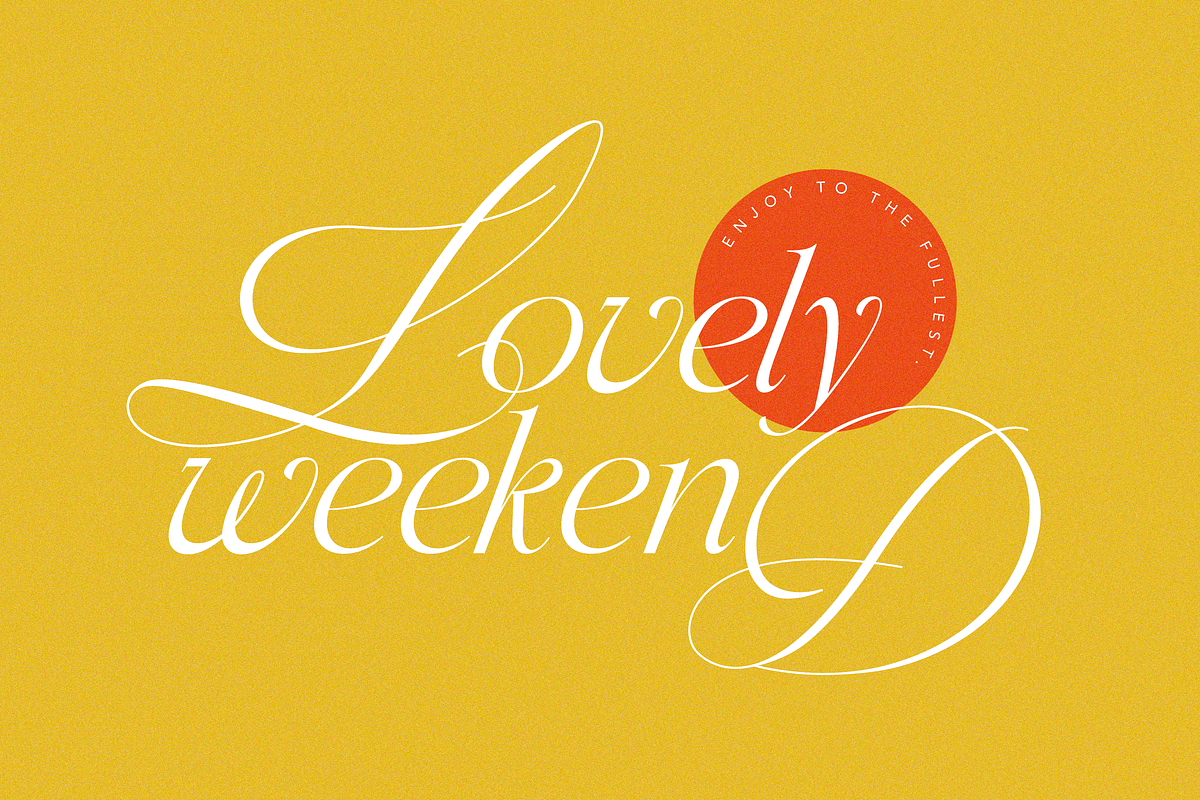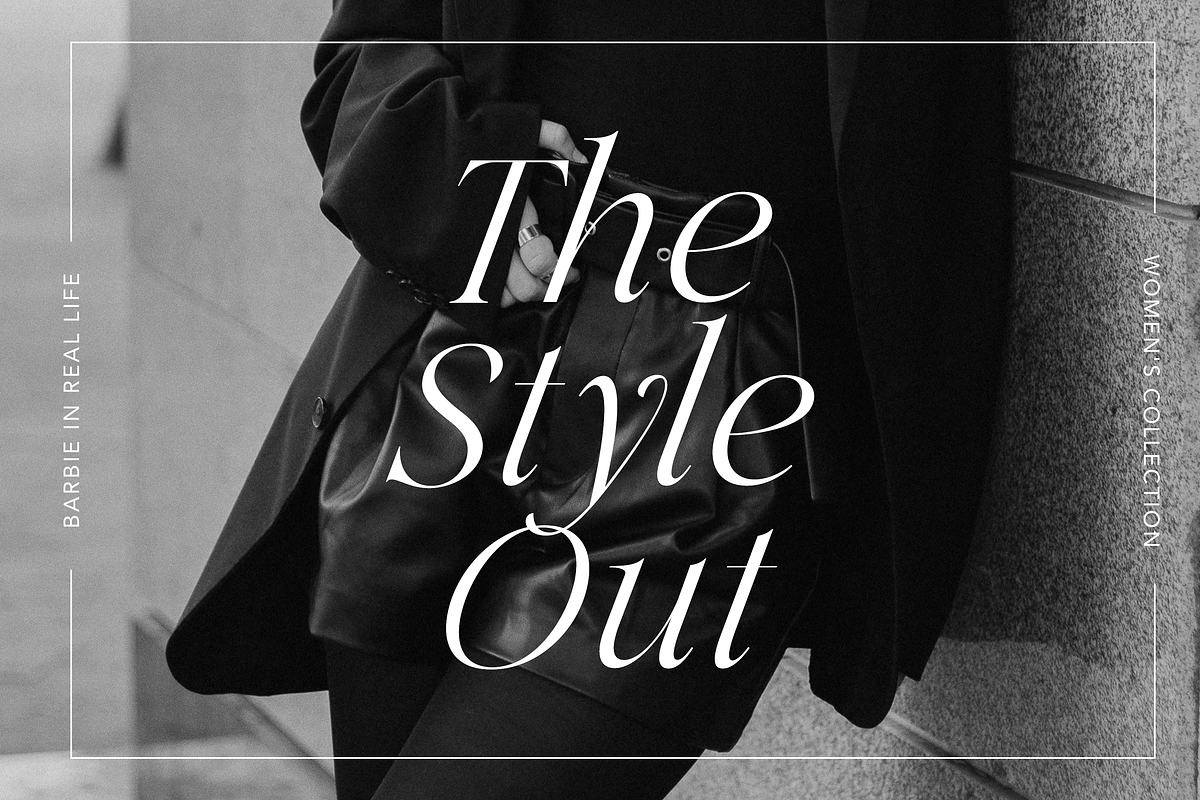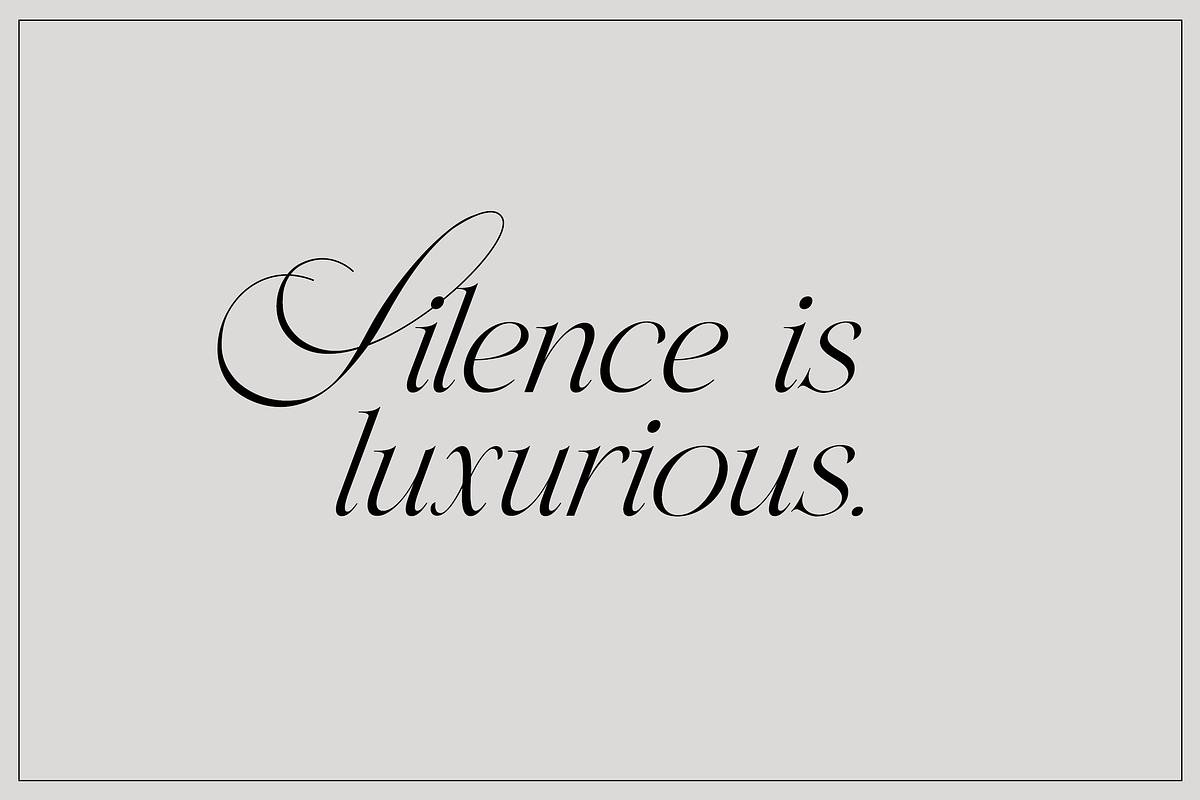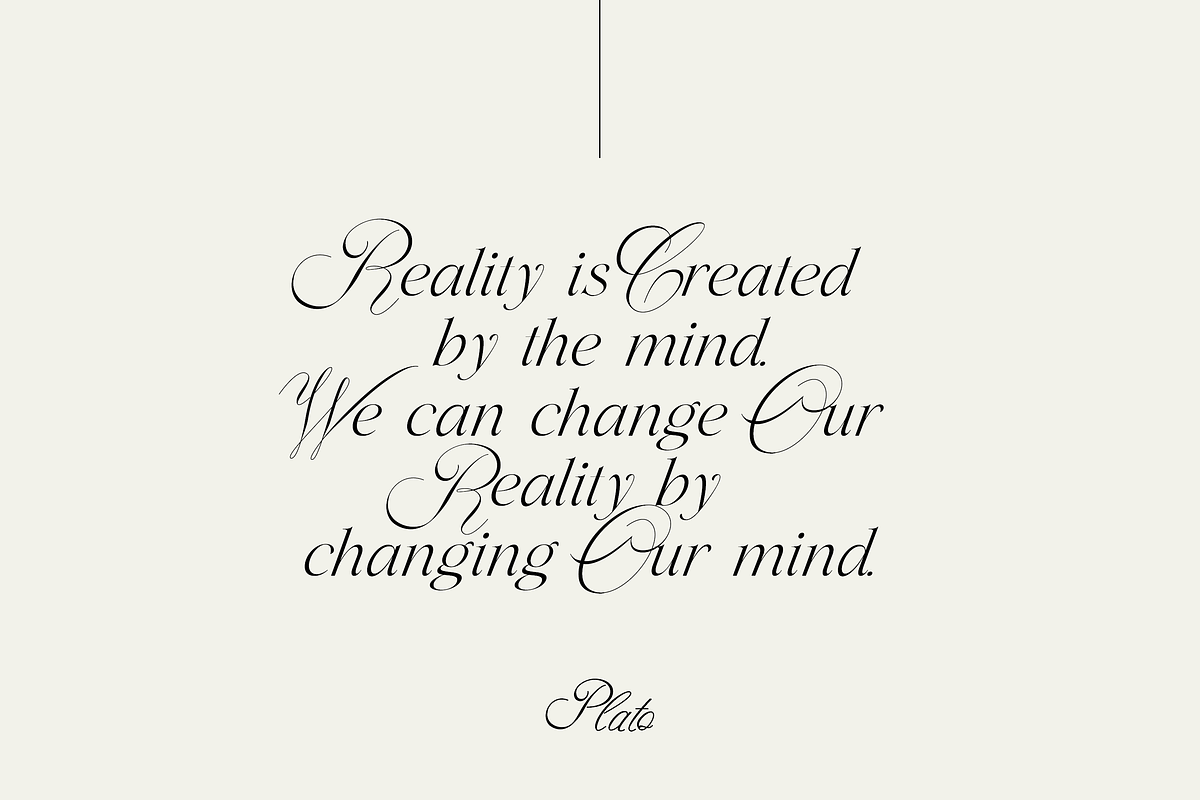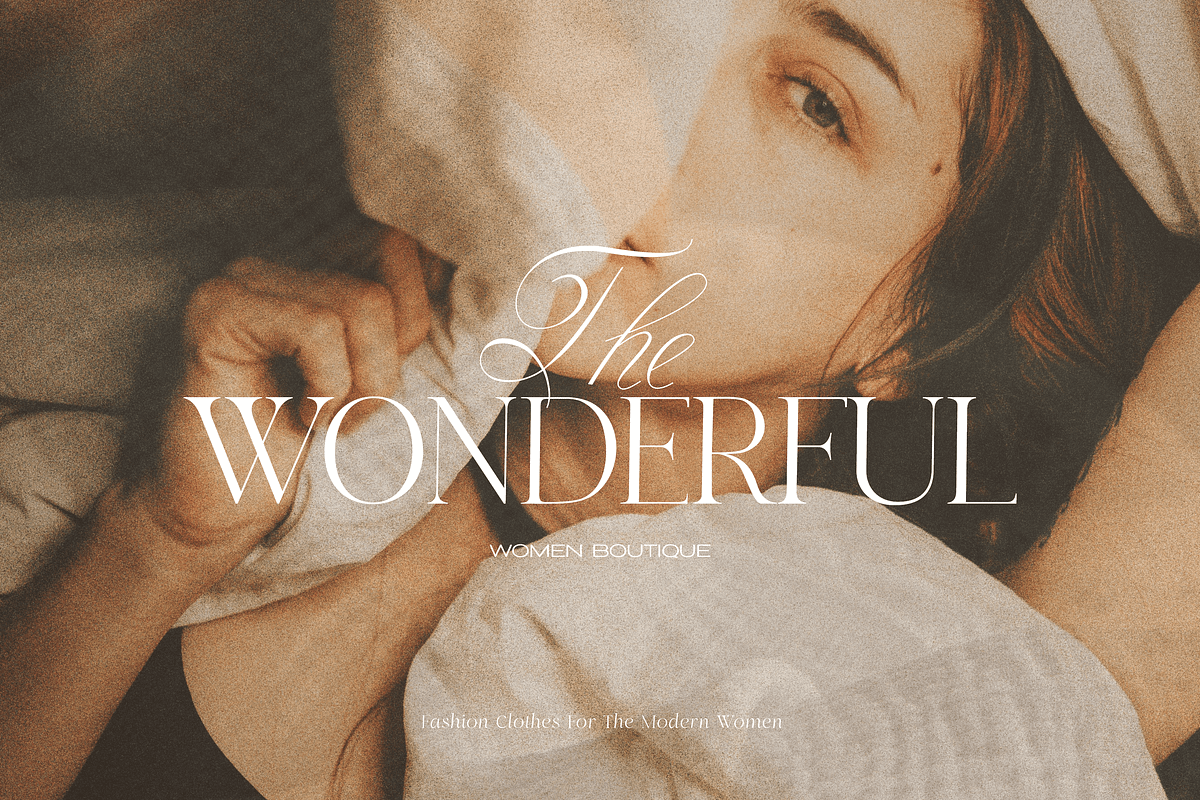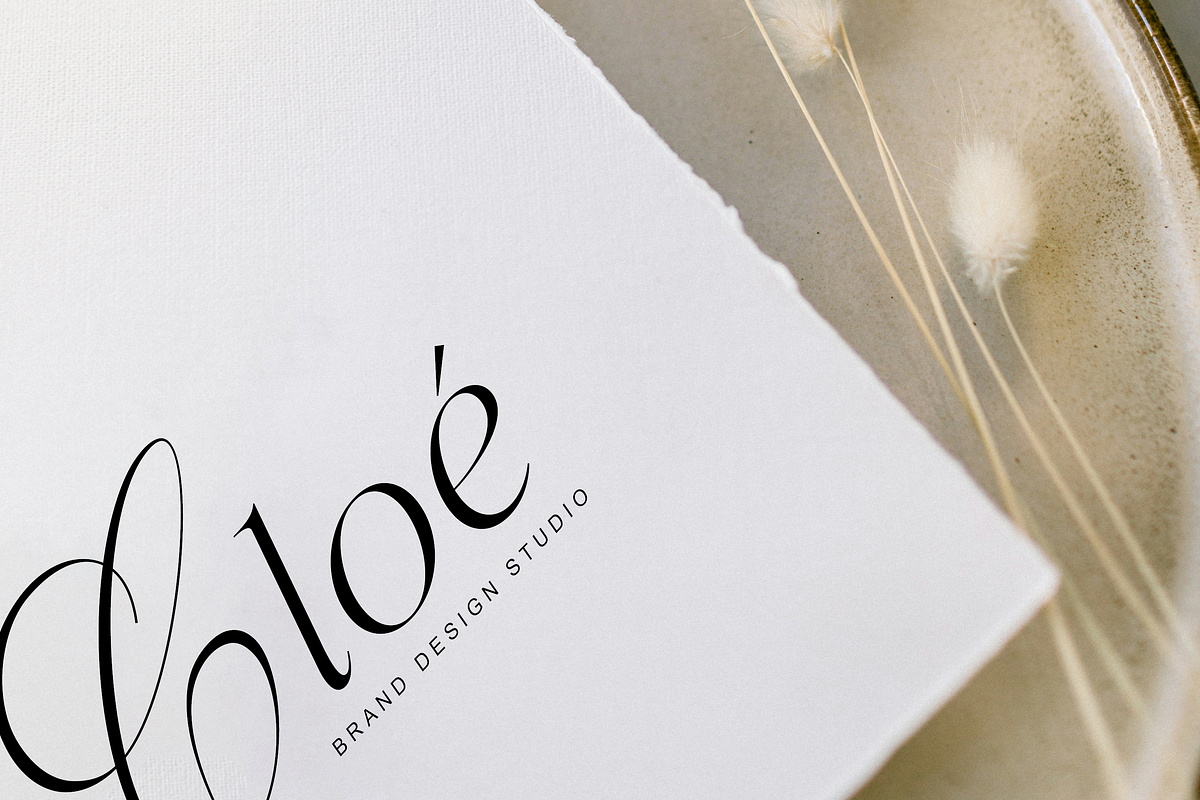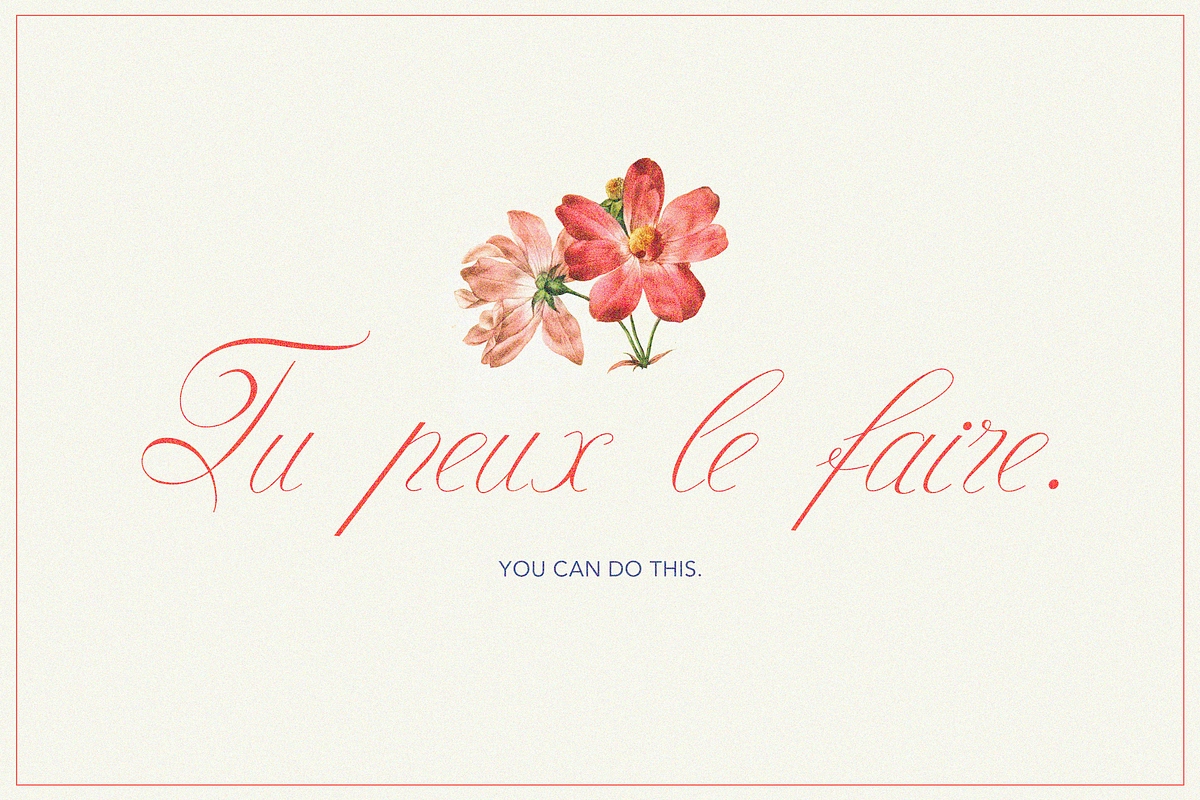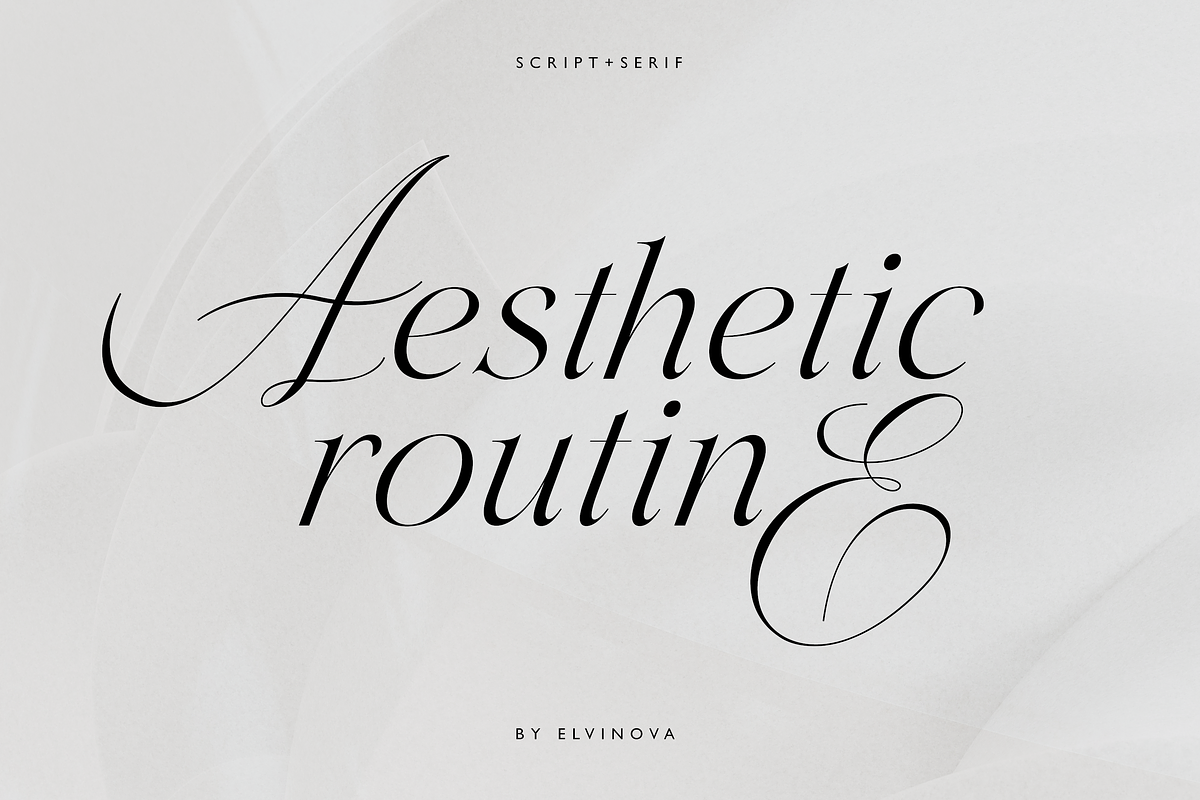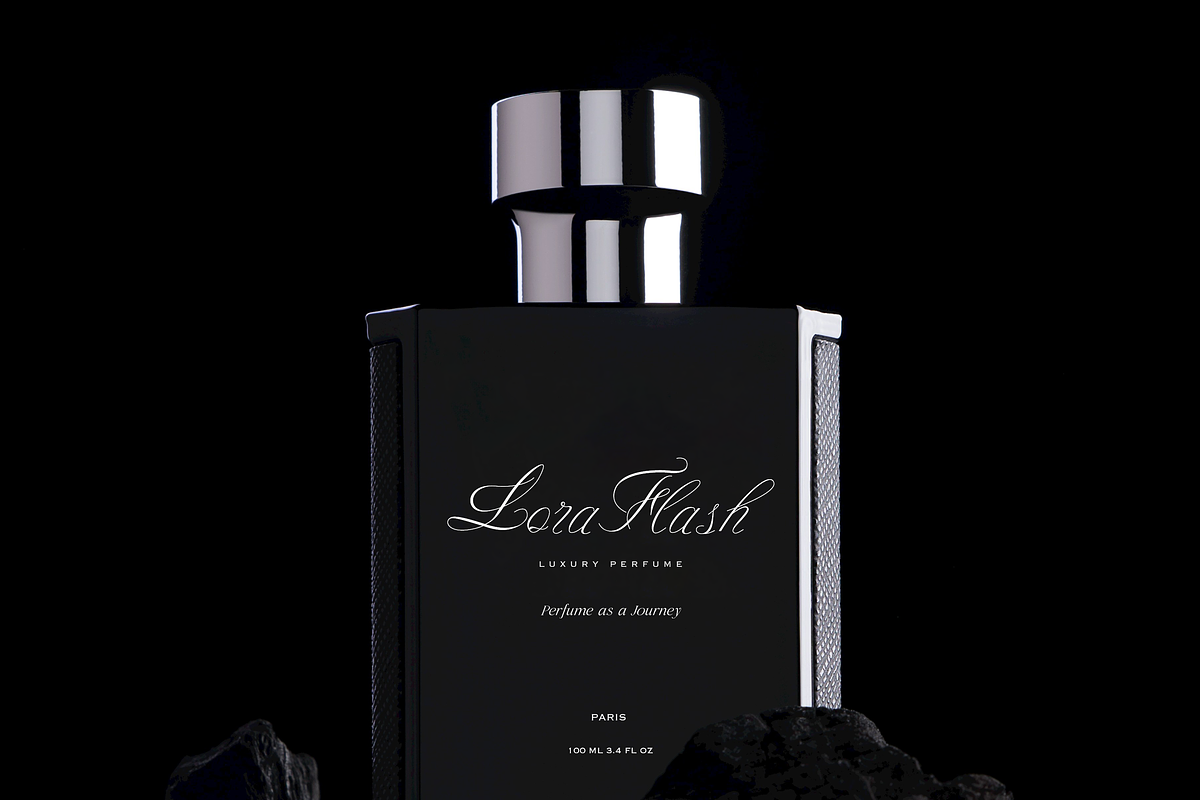
Aesthetic Serif & Script Font Duo
Elegant serif and script font duo. Together, these fonts create a harmonious duo that pairs the structured beauty of the serif with the expressive elegance of the script. They complement each other in formal print materials such as wedding invitations, upscale branding, and book covers where both style and legibility are essential.
- Upper/lowercase, numbers, punctuations;
Language support: English, German, French, Spanish, Italian, Danish, Finnish, Portuguese, Swedish, Norwegian, Dutch, Indonesian, Luxembourgish, Icelandic, Cornish, Hungarian, Filipino, Romansh, Slovenian, Estonian, Polish, Turkish.